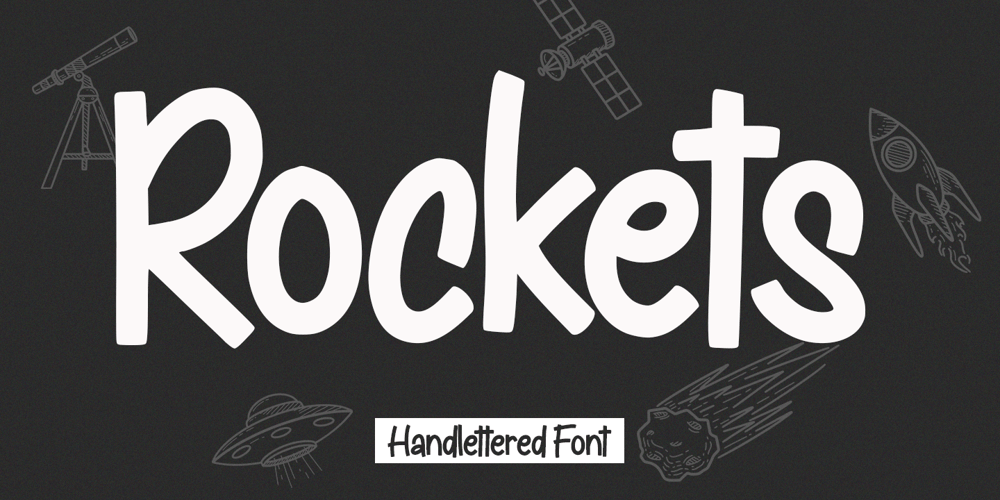
Rockets
Rockets font
Rockets Font Family was designed by Andri Kurniawan and published by Struggle Studio. Rockets contains 1 styles and family package options. Rockets this font has a fairytale feeling to it and the name looks good. Rockets is a happy display font. It is fun, bouncy and quirky. Use it for your book covers, toy-packaging and home made apple sauce labels.